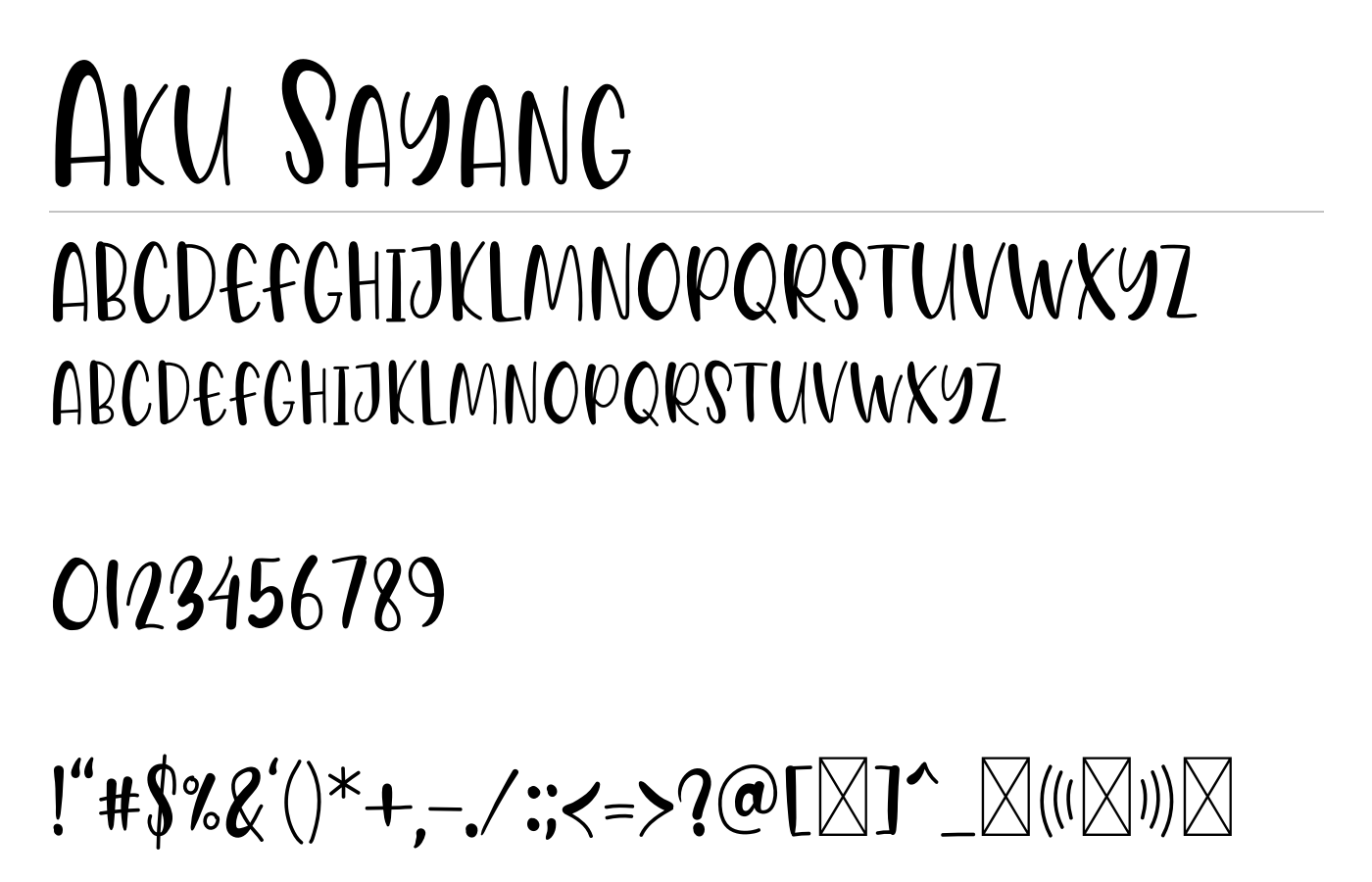
Aku Sayang is a playful, hand-drawn sans serif font with a casual, whimsical feel. Its tall, narrow letterforms have a friendly, approachable style that works well for informal branding, children’s content, or creative projects needing a personal touch. This font shines in headlines, logos, and packaging where a lighthearted and unique vibe is desired.
Aku Sayang Font